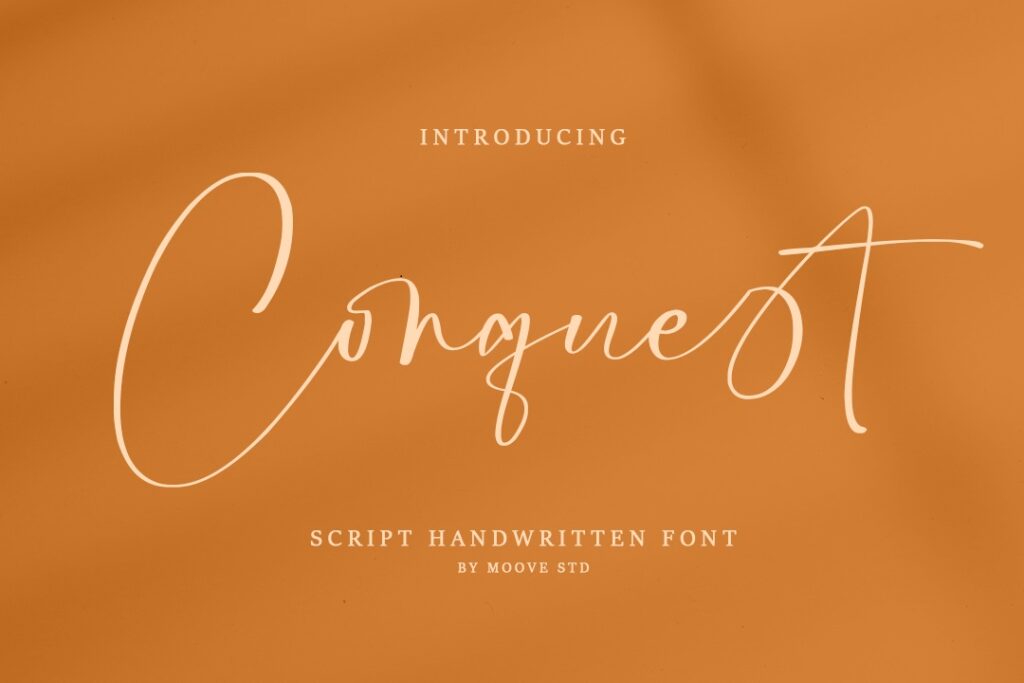
Conquest Font
Conquest Handwritten Font is a stylish, thin lettered and relaxed script typeface. It is PUA encoded which means you can access all of the glyphs and swashes with ease! It will add a luxury spark to any design project that you wish to create!
Conquest Handwritten Script Font